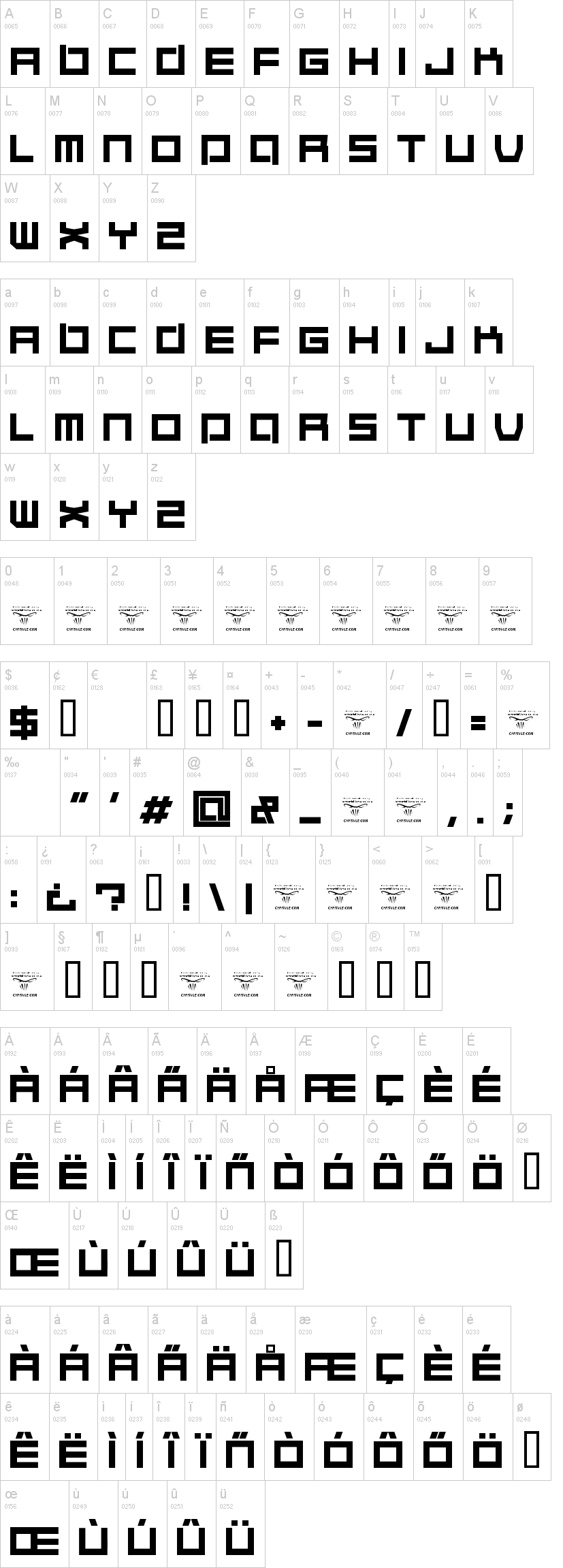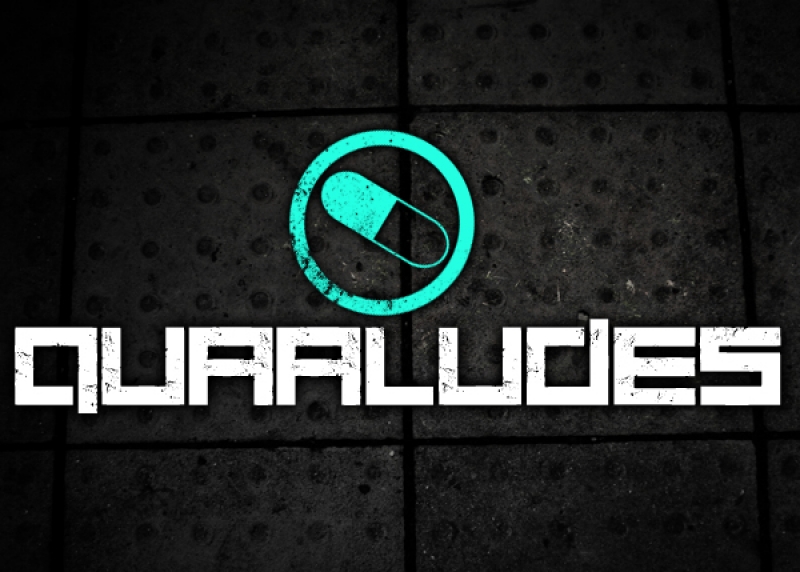
Quaaludes & Quaaludes Hulk Font
is a solid and eroded square theme font, both font version offer a regular and italic version. This font is free only for personal use. You cannot use this font in a business, financial venture, or in any commercial means without a font license which can be purchased from the font store.
Accents & European characters only available in Quaaludes Hulk, the eroded version (Quaaludes) does not include the accents or European characters. The image below shows the available characters in Quaaludes Hulk version.